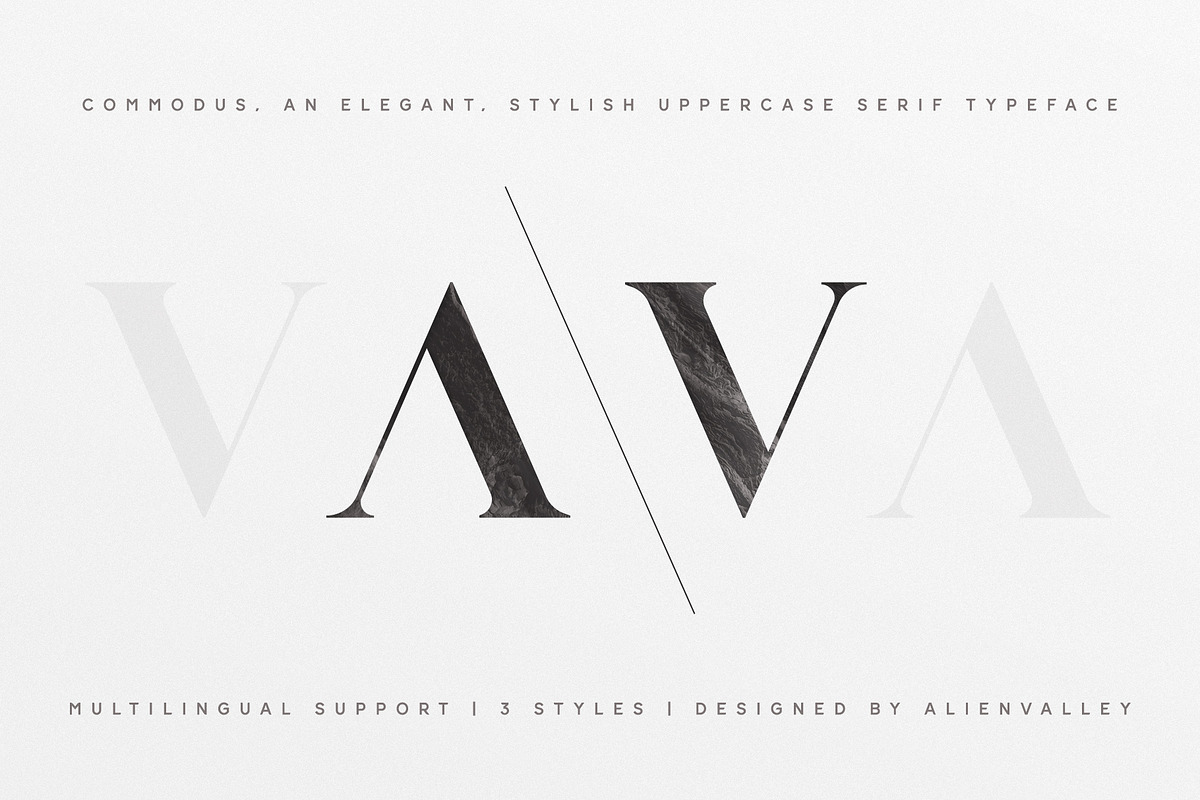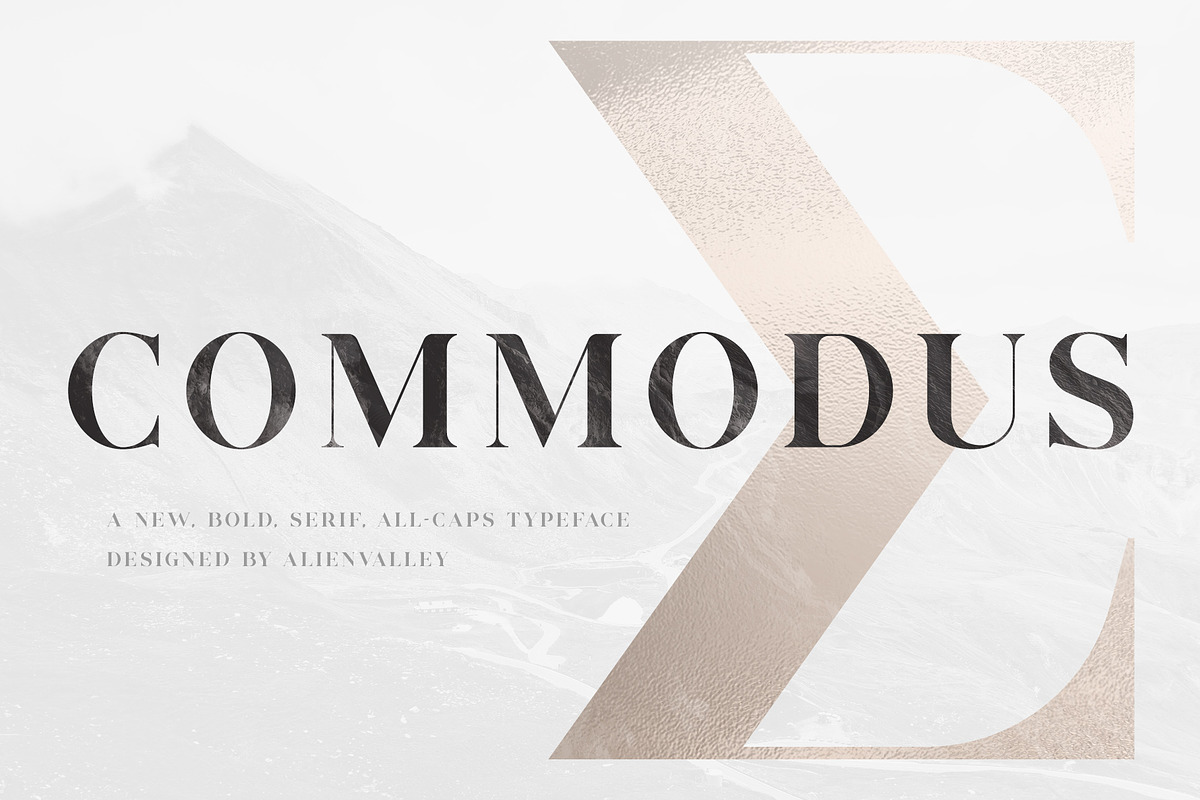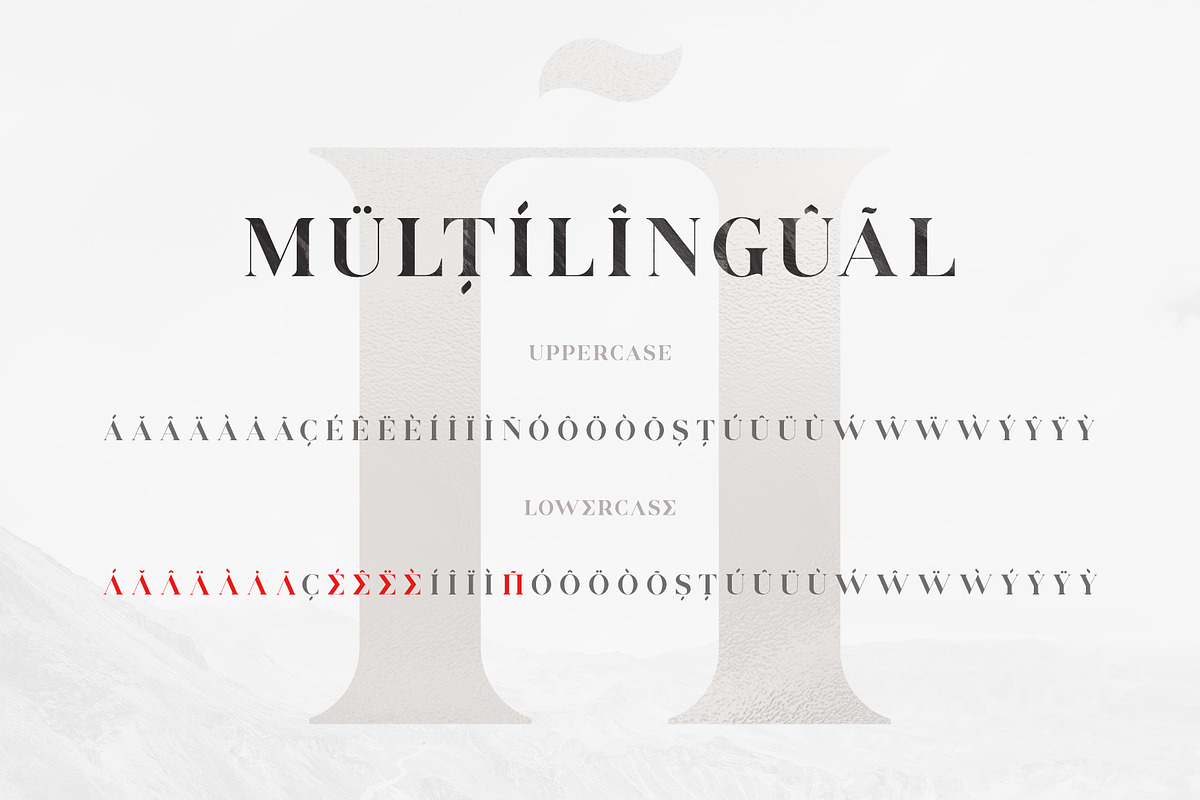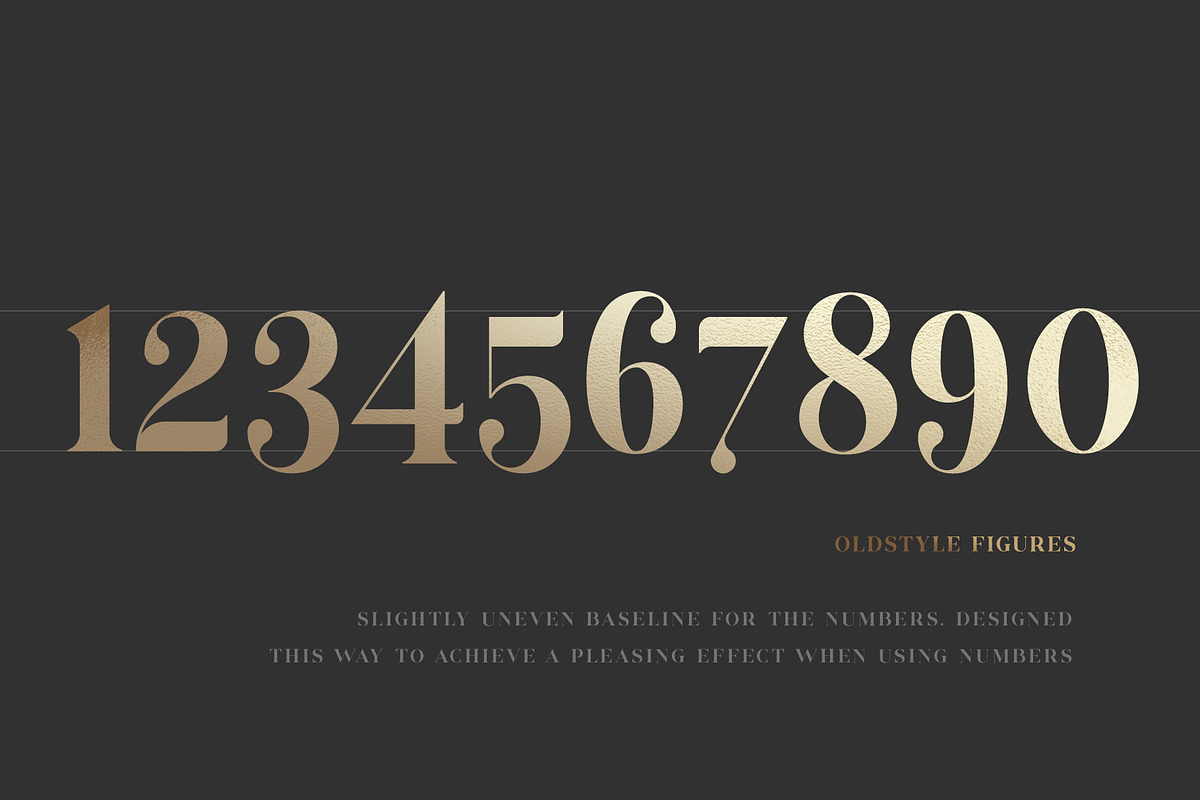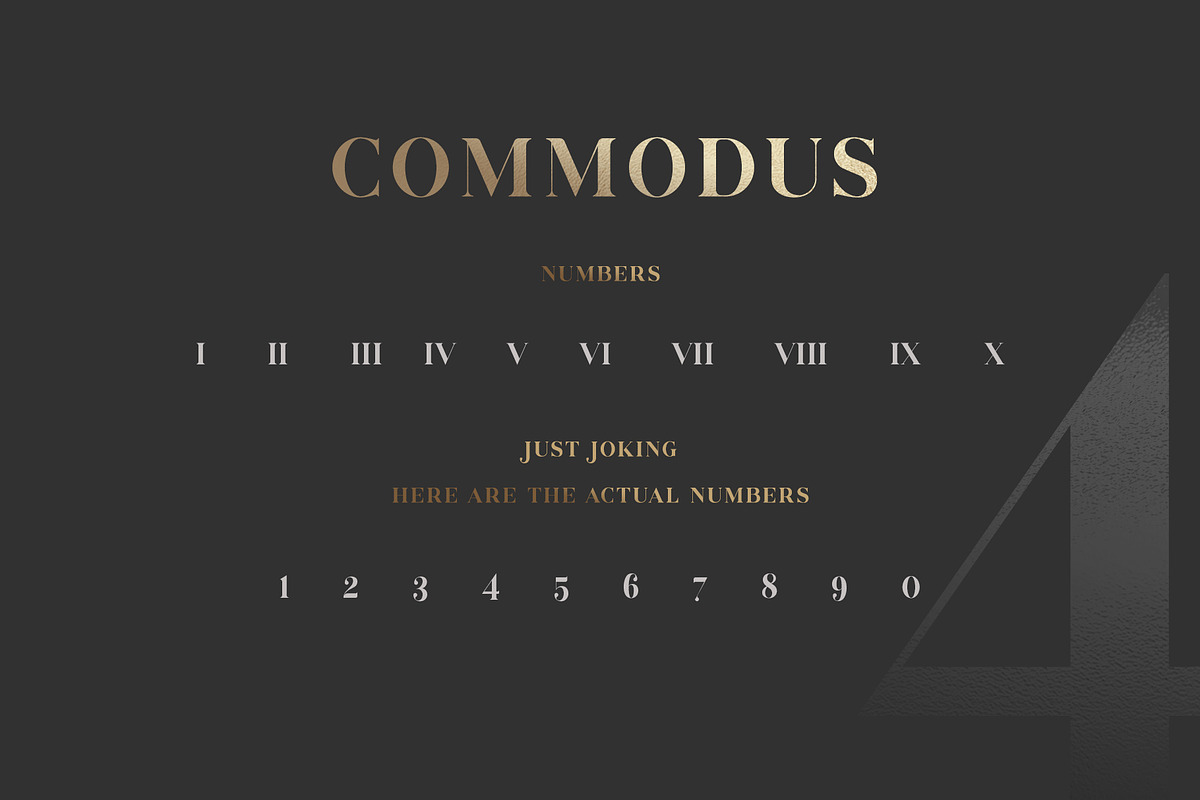
Commodus - All Caps Serif Typeface
Commodus is a new elegant all caps serif typeface with letters inspired from the greek alphabet.
There are 3 included variations:
Greek features some greek letters that are visually similar to the english letters (A E N).
Regular features only english letters, so if things get confusing please use this version!
Uppercase letters only
Special Characters for lowercase letters
3 Styles (Regular, Greek, Greek Alt)
Oldstyle figures (uneven baseline for numbers)
- Greek Alt contains the same greek characters but for the actual letters they represent (Lambda = L, Sigma = S, Pi = P).